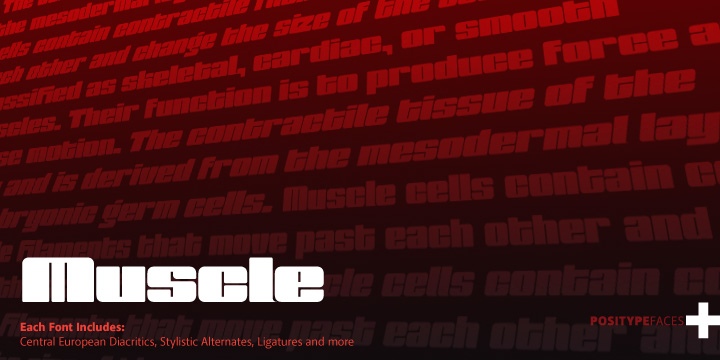
Muscle Font
Muscle Font excels in bodybuilding gym branding, strength training center signage, protein supplement packaging, fitness competition promotions, powerlifting event materials, muscle-building program logos, athletic performance campaigns, hardcore workout merchandise, strength coaching services, and iron pumping motivational posters. This powerful typeface brings raw strength and muscular intensity to any fitness-focused design project.
Muscle Font is exciting because it embodies the incredible power and unwavering determination required to build serious muscle mass, featuring bold, commanding letterforms that flex with strength and convey the iron-willed dedication necessary for transforming the human body through intense training. Its muscular character instantly motivates action and projects the raw power of serious strength training.
Muscle Font family includes Regular, Bold, Heavy, and Black weights with muscle-inspired alternates, strength flourishes, iron-pumping ornamental elements, and power symbols that enhance the hardcore aesthetic, providing fitness designers with powerful tools for creating typography that motivates muscle growth and celebrates the dedication required for serious strength development.
Muscle Font Free Download offers fitness industry professionals access to one of the most authentically powerful typefaces available for muscle-building design applications. This exceptional font has gained recognition among bodybuilding gyms, supplement companies, and strength training facilities for its ability to communicate raw power and muscle-building determination through typography that embodies the hardcore dedication of serious iron athletes.
Bodybuilding marketers appreciate Muscle Font for its exceptional ability to convey muscular strength and motivate intense training through aggressively designed letterforms. The font's powerful character and muscle-focused details create immediate associations with heavy lifting, muscle growth, and the relentless determination required to build impressive physiques through consistent, hardcore strength training and unwavering commitment.
The design philosophy behind Muscle Font celebrates the transformative power of strength training and the incredible dedication required to build serious muscle mass through intense workouts and disciplined lifestyle choices, making it particularly effective for gyms, supplement brands, and fitness programs that cater to serious athletes pursuing maximum muscle development. Training teams working on hardcore programs find this font essential.
Whether used for bodybuilding competitions, hardcore gym facilities, or muscle-building supplement brands, Muscle Font delivers the perfect combination of raw power and muscular authenticity. Its strength appeal and hardcore intensity make it an indispensable choice for fitness brands that celebrate serious muscle building, strength development, and the iron-willed determination required for achieving maximum muscular potential.